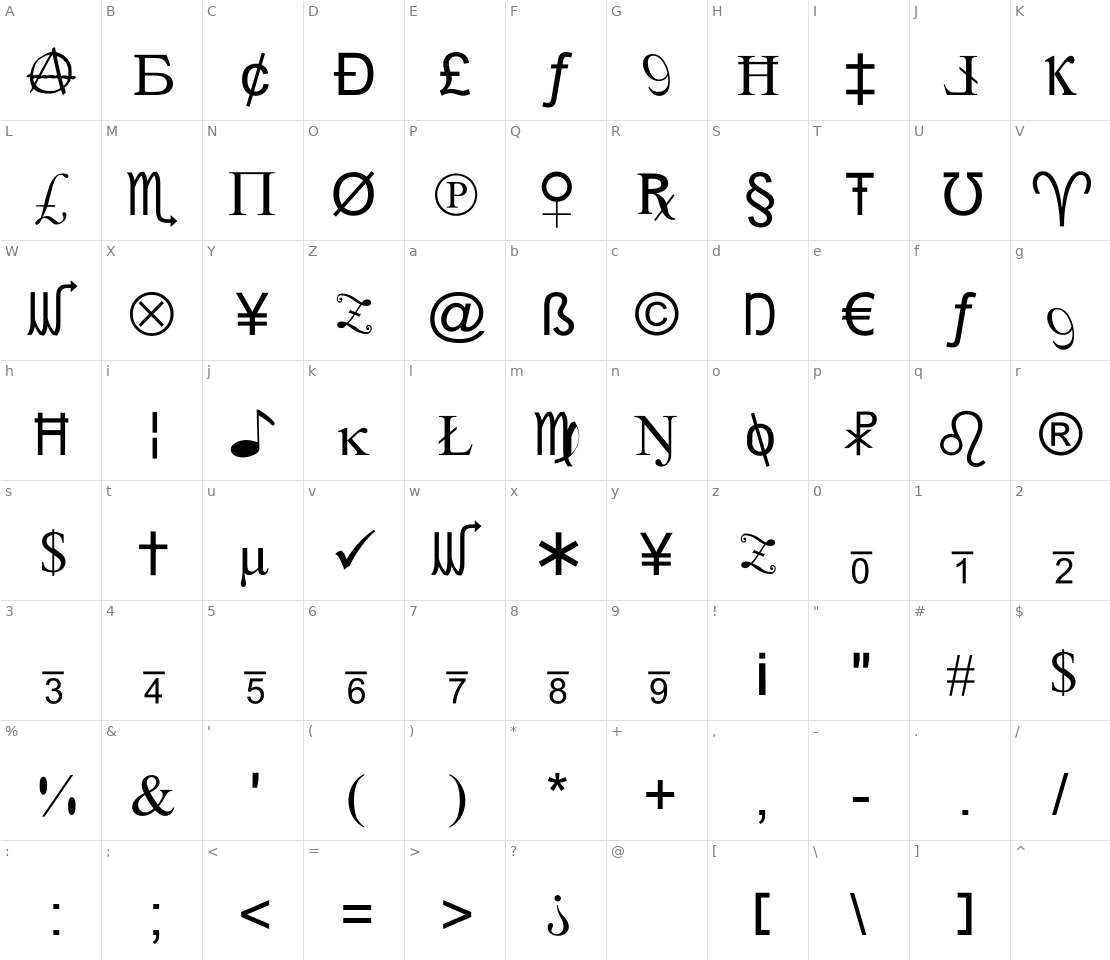
X-Cryption
X-Cryption is a cipher-style novelty font from Iconian Fonts where each character is replaced by cryptic, symbol-like glyphs that feel like an alien alphabet or encoded transmission. It's less about readability and more about visual intrigue, making it useful for puzzle designs, escape room materials, ARG graphics, or any project where the text itself is meant to feel like a secret waiting to be cracked.